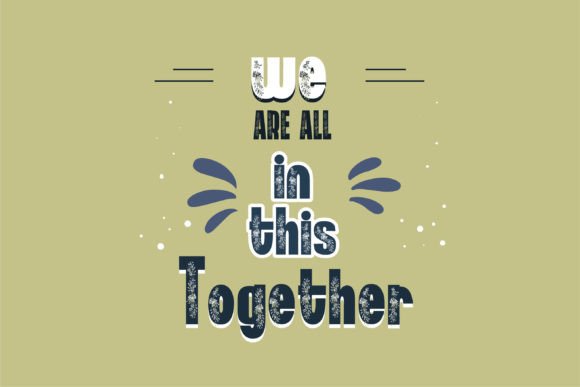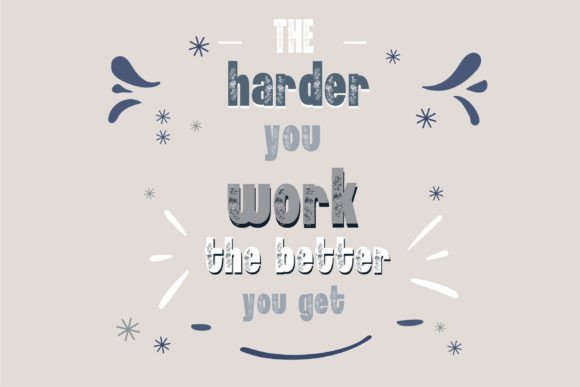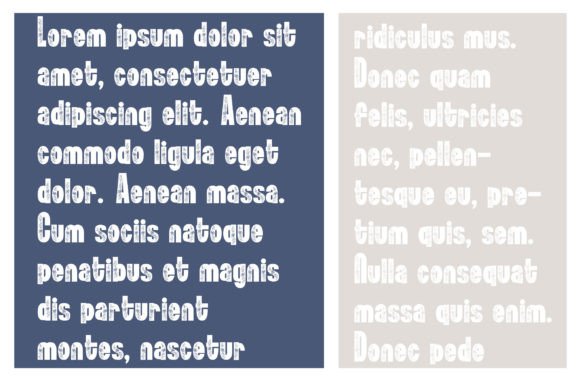
Introduction to Simple Spring Font
Simple Spring is a bold sans serif font that sports a floral spray throughout.
Fall in love with it and bring your projects to the highest levels .
Key Features of Simple Spring Font
Why Choose Simple Spring Font?
Simple Spring Font offers exceptional quality and versatility, making it a valuable addition to your design toolkit. Whether you’re creating for personal projects or commercial use, Simple Spring Font delivers professional results.